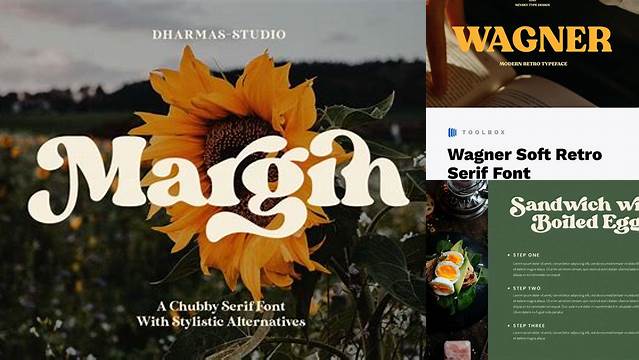
Margin Font: Free Retro Serif For Your Designs
Hey guys! Are you on the hunt for a font that screams vintage charm with a modern twist? Look no further! We're diving deep into the world of Margin, a stunning retro serif font that you can snag for free. This font is perfect for adding a touch of class and nostalgia to your projects, whether you're designing logos, posters, websites, or anything in between. Let's explore what makes Margin so special and how you can use it to elevate your designs. We'll cover everything from its unique characteristics to its best use cases and even where you can download it. So, buckle up and let's get started!
1. What is a Retro Serif Font?
Before we zoom in on Margin, let's talk about the big picture: what exactly is a retro serif font? Retro fonts, in general, are typefaces that draw inspiration from design trends of the past, typically the early to mid-20th century. Think of the fonts you'd see on old movie posters, vintage advertisements, and classic book covers. Serif fonts, on the other hand, are characterized by the small decorative strokes, or serifs, at the end of letterforms. These serifs give the font a more traditional and formal appearance compared to sans-serif fonts, which lack these strokes. When you combine the retro aesthetic with the serif style, you get a font that's both nostalgic and sophisticated. These fonts often evoke feelings of warmth, elegance, and a bygone era, making them ideal for projects that aim to convey these qualities. Margin, with its carefully crafted serifs and vintage-inspired design, perfectly embodies this retro serif style. It’s the kind of font that can instantly transport your audience to a different time, while still feeling fresh and relevant in today's design landscape. Using a retro serif font like Margin can add a unique personality to your designs, setting them apart from the crowd of modern, minimalist typefaces. The key is to understand the nuances of the font and use it in a way that complements your overall design goals. Keep reading to learn more about the specific characteristics of Margin and how to best utilize its retro charm.
2. Key Characteristics of the Margin Font
So, what makes Margin stand out from the crowd of other retro serif fonts? Let's dive into its key characteristics. First and foremost, Margin boasts a distinct vintage vibe. Its letterforms are carefully crafted to evoke the feel of classic typography, reminiscent of the mid-20th century design era. Think Mad Men meets modern design. The serifs themselves are a crucial element. They're not overly dramatic or fussy, but they have a subtle flair that adds to the font's overall elegance. They provide a grounded, traditional feel while still maintaining a touch of playfulness. The weight of the font is also a key factor. Margin has a balanced weight, making it legible in a variety of sizes, from headlines to body text. It’s not too thin, which could make it feel fragile, and it’s not too bold, which could overpower a design. This balance ensures that Margin is versatile and can be used in many different contexts. Another noteworthy characteristic is the font's overall rhythm and spacing. The letters are spaced thoughtfully, creating a harmonious flow that's pleasing to the eye. This is essential for readability and ensures that the text doesn't feel cramped or cluttered. Finally, the subtle curves and details within the letterforms give Margin a unique personality. It's not just another generic serif font; it has a character all its own. These details add a touch of warmth and humanity to the font, making it feel less sterile and more inviting. Understanding these characteristics is crucial for using Margin effectively. By recognizing its vintage vibe, balanced weight, and thoughtful spacing, you can leverage its unique qualities to create designs that truly stand out.
4. Best Use Cases for Margin Font
Now that you've got Margin in your font arsenal, let's talk about how to use it effectively. This retro serif font isn't a one-size-fits-all solution, but it shines in certain design contexts. Understanding these best use cases will help you leverage Margin's strengths and create impactful designs. One of the most fitting applications for Margin is in branding projects that aim to evoke a sense of nostalgia or vintage charm. Think of businesses like coffee shops, barbershops, boutiques, or any brand that wants to project a classic, sophisticated image. Margin can be a fantastic choice for logos, business cards, and other branding materials. Its elegant serifs and retro flair will help create a memorable and distinctive brand identity. Another area where Margin excels is in editorial design. It's a great option for headlines and subheadings in magazines, newspapers, and books. Its readability and classic style make it a strong choice for longer blocks of text, while its unique personality adds visual interest to the page. Imagine using Margin for the title of a vintage-themed magazine or the chapter headings in a historical novel. Margin also works well in packaging design, particularly for products that want to convey a sense of craftsmanship or heritage. Think of artisanal food products, craft beverages, or handmade goods. Using Margin on the packaging can instantly communicate a sense of quality and tradition. In web design, Margin can be used to add a touch of elegance to websites and blogs. It's particularly well-suited for headlines, navigation menus, and other key text elements. However, it's important to use it sparingly and pair it with a clean, modern sans-serif font for body text to ensure readability on screen. Finally, Margin can be a great choice for posters and other display graphics. Its eye-catching design and vintage appeal make it ideal for grabbing attention and conveying a message with style. Whether you're designing a poster for a retro-themed event or creating a promotional graphic for your business, Margin can help you achieve a look that's both classic and contemporary.
5. Pairing Margin with Other Fonts
Using Margin effectively often means pairing it with another font that complements its style. While Margin has a lot of personality, it's important to choose a secondary font that doesn't clash or compete for attention. The goal is to create a visual hierarchy and ensure readability, while also maintaining a cohesive design. One of the most common and effective strategies is to pair Margin with a clean, modern sans-serif font. Sans-serif fonts lack the decorative serifs that characterize Margin, creating a visual contrast that's pleasing to the eye. This pairing works well because the sans-serif font provides a sense of simplicity and modernity, while Margin adds a touch of elegance and vintage charm. Some popular sans-serif fonts that pair well with Margin include Helvetica, Arial, Open Sans, and Montserrat. These fonts are all highly legible and versatile, making them excellent choices for body text and other secondary text elements. When choosing a sans-serif font to pair with Margin, consider the overall tone and style of your design. A more geometric sans-serif like Montserrat might be a good choice for a modern, minimalist design, while a more humanist sans-serif like Open Sans could be a better fit for a design that aims for a warmer, more approachable feel. Another option is to pair Margin with a different style of serif font, but this requires a bit more finesse. If you choose this route, make sure the two serif fonts have distinct personalities and don't feel too similar. For example, you might pair Margin with a more traditional serif font like Garamond or a slightly bolder serif font like Playfair Display. The key is to create a clear visual hierarchy and avoid having the two fonts compete for attention. When pairing fonts, pay attention to the font weights and sizes. Margin might work well as a headline font in a larger size, while the secondary font is used for body text in a smaller size. This helps create a clear visual hierarchy and guides the reader's eye through the design. Experiment with different font pairings to see what works best for your specific project. There's no one-size-fits-all solution, so don't be afraid to try different combinations and see what resonates with your aesthetic.
6. Using Margin in Logos
Margin can be a fantastic choice for logos, especially if you're aiming for a brand identity that feels classic, sophisticated, and a little bit retro. A well-designed logo is crucial for brand recognition, and the font you choose plays a significant role in conveying your brand's personality. When using Margin in a logo, consider the overall message you want to communicate. This font's vintage charm and elegant serifs can evoke feelings of tradition, quality, and attention to detail. It's a great fit for businesses that want to project a sense of heritage or craftsmanship. Think of brands like artisanal coffee roasters, bespoke tailors, or high-end stationery shops. One approach is to use Margin for the entire logo, particularly if your brand name is relatively short and easy to read. The font's unique personality can make your logo stand out, even without additional graphic elements. However, it's important to ensure that the logo is still legible and scalable, meaning it looks good in both large and small sizes. Another option is to use Margin in combination with a graphic element or icon. This can help add visual interest to the logo and create a more memorable brand identity. For example, you might pair the Margin font with a vintage-inspired illustration or a simple geometric shape. If you're using Margin for the main text in your logo, consider pairing it with a simpler sans-serif font for any tagline or secondary text. This creates a visual hierarchy and ensures that the logo doesn't feel too cluttered. As mentioned earlier, fonts like Helvetica, Arial, or Open Sans can be excellent choices for this purpose. Experiment with different font weights and sizes to find the right balance. A bolder weight of Margin can make your logo stand out even more, while a lighter weight might be more suitable for a more subtle and elegant look. It's also important to consider the color palette of your logo. Margin pairs well with classic color combinations, such as black and white, navy and gold, or shades of brown and beige. These colors can enhance the font's vintage aesthetic and create a timeless brand identity. Remember to test your logo in different contexts, such as on your website, business cards, and social media profiles. This will help you ensure that it looks good across all platforms and maintains its legibility and impact.
7. Margin for Website Headers
When it comes to web design, the fonts you choose for your headers play a crucial role in creating visual interest and guiding the user's eye. Margin can be an excellent choice for website headers, adding a touch of elegance and sophistication to your online presence. Headers are the first thing visitors see when they land on your site, so they need to grab attention and clearly communicate the purpose of your content. Margin's unique retro serif style can help you achieve this, especially if your website aims for a classic or vintage aesthetic. Using Margin for your website headers can create a sense of visual hierarchy, making it easy for users to scan the page and understand the structure of your content. The font's distinct personality can also help reinforce your brand identity and create a memorable online experience. When using Margin for headers, consider the size and weight of the font. Larger font sizes will make your headers stand out, while a bolder weight can add even more emphasis. However, it's important to ensure that the headers remain legible and don't overwhelm the rest of the page. Think about the overall design of your website and how Margin fits into the visual landscape. If your site has a minimalist design, Margin can add a touch of warmth and character. If your site is already visually rich, Margin can help tie the elements together and create a cohesive look. As with logo design, pairing Margin with a clean sans-serif font for body text is a common and effective strategy. This creates a visual contrast that's pleasing to the eye and ensures readability. A clear visual hierarchy is essential for a good user experience, so make sure your headers stand out from the body text. Pay attention to the spacing and kerning of your headers. Proper spacing between letters and lines can improve readability and make your headers look more polished. Adjust the letter-spacing and line-height in your CSS to achieve the desired effect. Test your website headers on different devices and screen sizes. What looks good on a desktop monitor might not look as good on a mobile phone. Make sure your headers are responsive and scale appropriately to fit different screen sizes. Consider using CSS text effects, such as shadows or outlines, to make your headers even more visually appealing. However, use these effects sparingly and avoid anything that could detract from readability. Finally, remember that your website headers are an important part of your brand identity. Use Margin consistently across your website to create a cohesive and recognizable look. This will help reinforce your brand message and create a positive impression on your visitors.
8. Margin for Print Materials
Margin truly shines when used in print materials, where its elegant serifs and vintage charm can be fully appreciated. Whether you're designing business cards, brochures, posters, or invitations, Margin can add a touch of class and sophistication to your printed pieces. Print design offers a unique opportunity to showcase the nuances of a font, as the high resolution and tactile nature of print allow for a greater appreciation of the details. Margin's carefully crafted letterforms and subtle curves come to life on paper, creating a visually stunning effect. When using Margin in print, consider the type of paper you're using. A heavier weight paper stock will give your printed materials a more luxurious feel, while a textured paper can enhance the font's vintage aesthetic. Margin works particularly well on uncoated paper stocks, which have a matte finish that complements the font's classic style. Think about the overall layout of your print materials. Margin can be used effectively for headlines, subheadings, and body text, but it's important to maintain a clear visual hierarchy. Use larger font sizes for headlines and smaller font sizes for body text to guide the reader's eye through the design. Consider using Margin for the body text in longer documents, such as brochures or magazines. Its readability and classic style make it a strong choice for extended reading, while its unique personality adds visual interest to the page. Pay attention to the leading (line spacing) and kerning (letter spacing) of your text. Proper leading and kerning can significantly improve readability and make your print materials look more professional. Adjust these settings in your design software to achieve the desired effect. If you're using Margin in a multi-page document, establish a consistent typographic style and stick to it throughout. This will help create a cohesive and polished look. Use Margin to create visual interest and reinforce your brand identity. Consistent font usage across all your print materials will help create a recognizable brand image. Experiment with different color combinations. Margin pairs well with classic color palettes, such as black and white, navy and gold, or shades of brown and beige. Consider using spot colors or metallic inks to add a touch of luxury to your print materials. Finally, always proofread your print materials carefully before sending them to the printer. Errors in typography can detract from the overall quality of your design. A clean, well-designed print piece can make a lasting impression, and Margin is a font that can help you achieve that.
9. Margin in Branding for Vintage Businesses
If you're branding a business that aims to evoke a sense of nostalgia, heritage, or classic style, Margin can be an absolute game-changer. Its retro serif charm makes it a perfect fit for vintage-inspired businesses, helping to create a brand identity that's both timeless and memorable. Think about businesses like barbershops, coffee shops, boutiques, or any brand that wants to project an image of quality, craftsmanship, and attention to detail. Margin can be used across a wide range of branding materials, from logos and business cards to websites and packaging. When using Margin for a vintage business, consider the overall brand story you want to tell. Margin's retro aesthetic can evoke a sense of a bygone era, so think about how you can use this to your advantage. Do you want to convey a sense of classic elegance, mid-century cool, or old-world craftsmanship? Your font choice can play a crucial role in shaping these perceptions. For logos, Margin can be used in a variety of ways. You might use it for the entire logo, especially if your brand name is short and memorable. Alternatively, you can pair it with a vintage-inspired graphic element or icon to create a more distinctive mark. Consider the color palette you use in your branding. Margin pairs well with classic color combinations, such as black and white, navy and gold, or shades of brown and beige. These colors can enhance the font's vintage aesthetic and create a timeless brand identity. In business cards, Margin can add a touch of sophistication and professionalism. Use it for your name, title, and contact information, and pair it with a clean sans-serif font for any secondary text. On websites, Margin can be used for headers, subheadings, and other key text elements. It's particularly well-suited for websites that have a strong visual identity and want to convey a sense of style and elegance. For packaging, Margin can add a sense of quality and craftsmanship. Think of artisanal food products, craft beverages, or handmade goods. Using Margin on the packaging can instantly communicate a sense of tradition and attention to detail. Consider using Margin consistently across all your branding materials to create a cohesive and recognizable brand identity. This will help reinforce your brand message and create a positive impression on your target audience. Remember, branding is about more than just aesthetics; it's about creating an emotional connection with your customers. Margin's retro charm can help you do just that, evoking feelings of nostalgia, trust, and appreciation for quality and craftsmanship.
28. The Future of Retro Fonts
29. Designing a Font Like Margin
30. Margin Font Licensing and Usage
In conclusion, Margin is a fantastic retro serif font that can add a touch of class and vintage charm to your designs. It’s versatile, elegant, and best of all, it’s free! By understanding its key characteristics and best use cases, you can leverage Margin to create impactful designs that stand out from the crowd. So go ahead, download Margin, and start experimenting with this beautiful font today! You might just find it becomes your new go-to for all things retro and stylish.